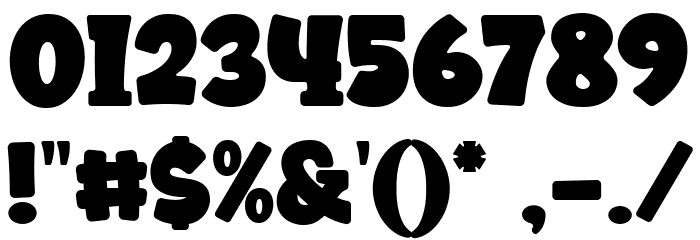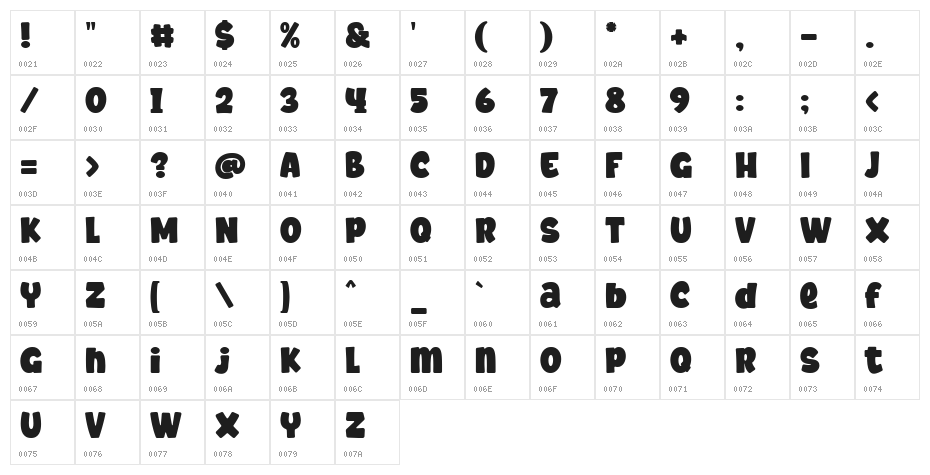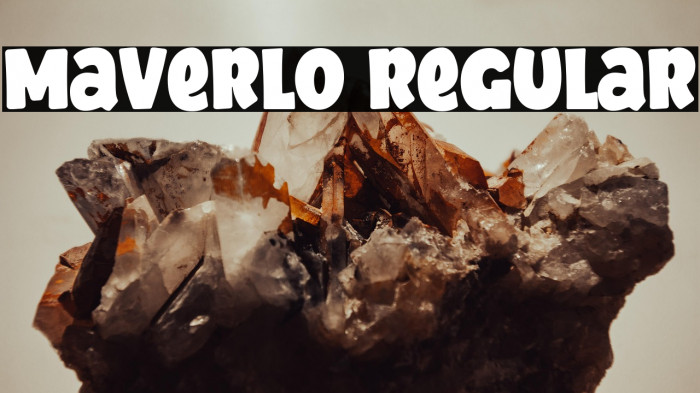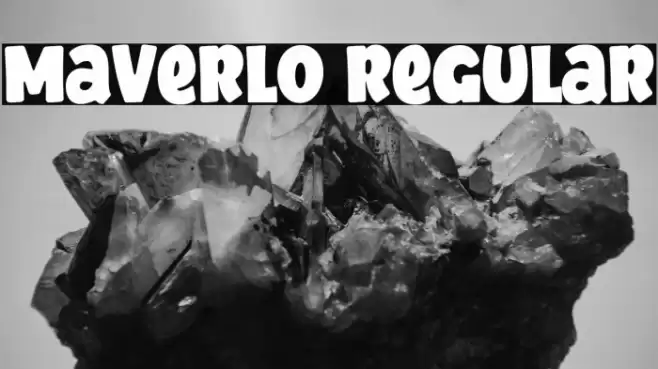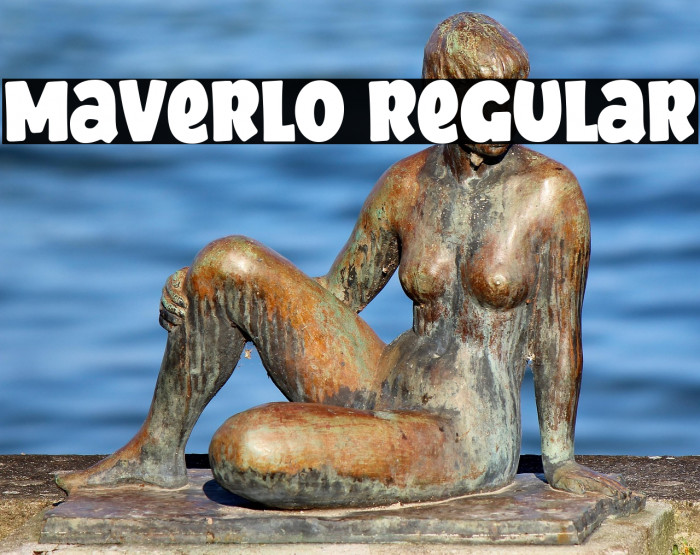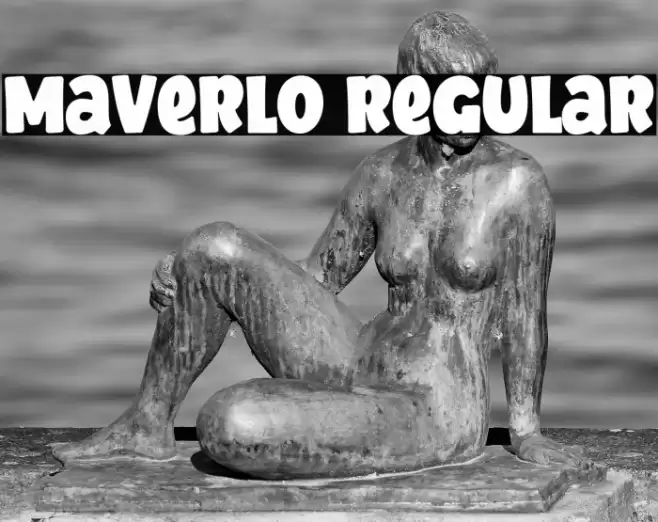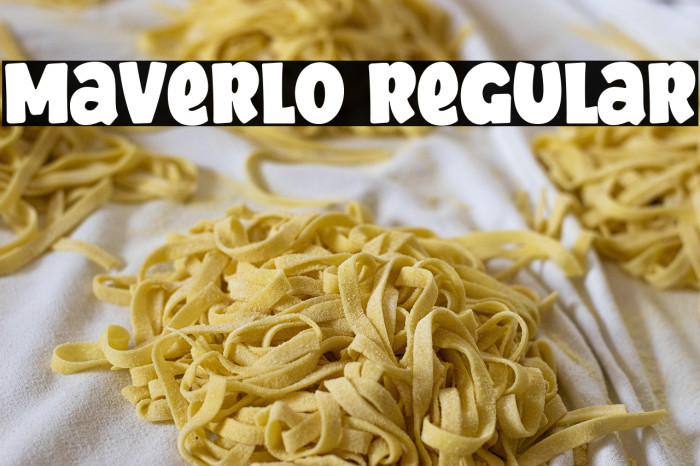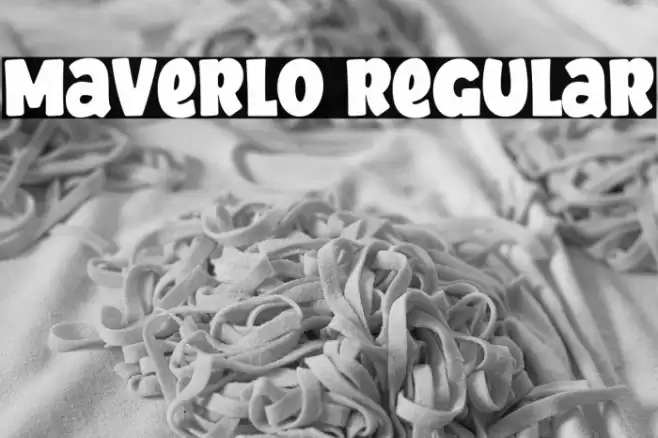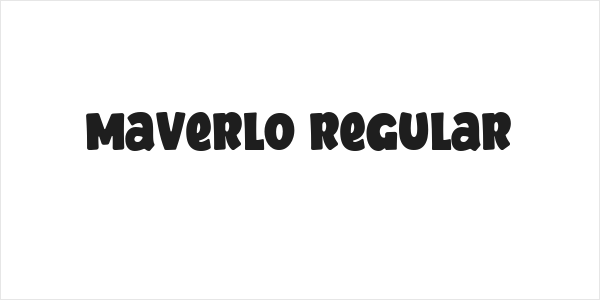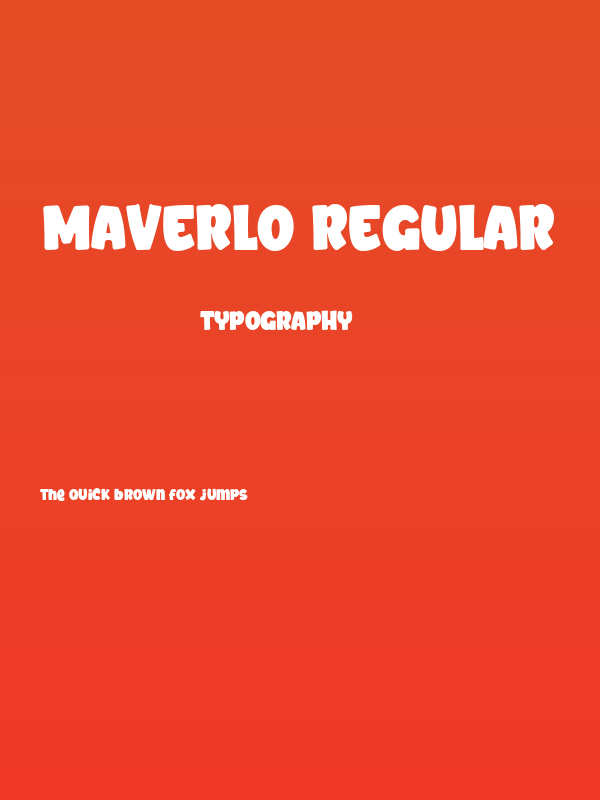
Maverlo Regular Font
Maverlo Regular Description
This font features bold, rounded characters with a playful and chunky appearance. The letters are uniformly thick, giving it a strong presence and making it highly legible from a distance. The style is reminiscent of retro or vintage designs, with a touch of whimsy that makes it suitable for creative and informal applications. The numbers and special characters maintain the same boldness and roundness, ensuring consistency across all glyphs. This font is ideal for projects that require a fun and eye-catching typeface.
| Proposed Projects | Perfect for children's books, playful branding, posters, and event invitations. |